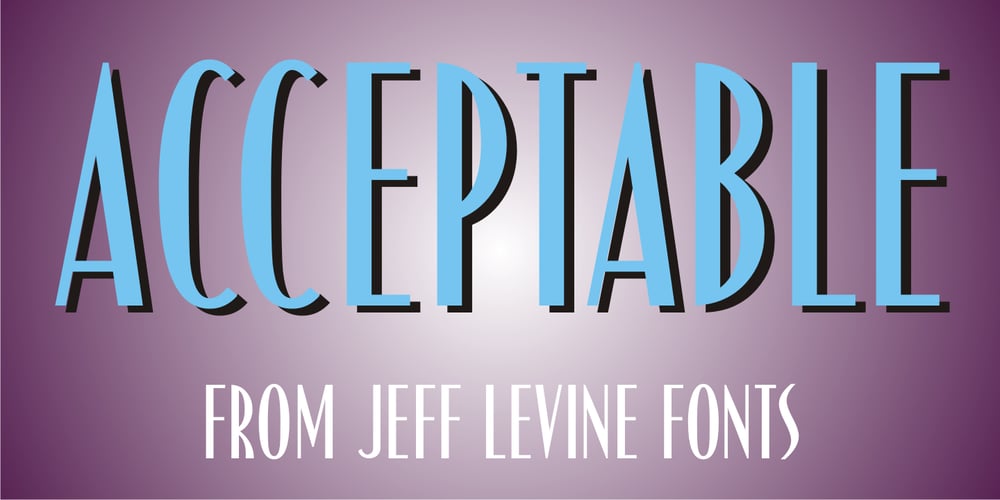
Acceptable JNL Font Family was designed by Jeff Levine and published by Jeff Levine. Acceptable JNL contains 1 styles and family package options. Acceptable JNL is a typeface modeled from hand lettering on a piece of 1940s sheet music, and has a distinctly casual, yet Art Deco flair. It’s name can also be mischievous, for when you’re asked “which font should I use for the job” you can answer “the Acceptable font”. This may well start a dialogue reminiscent of Abbott and Costello’s “Who’s On First?”